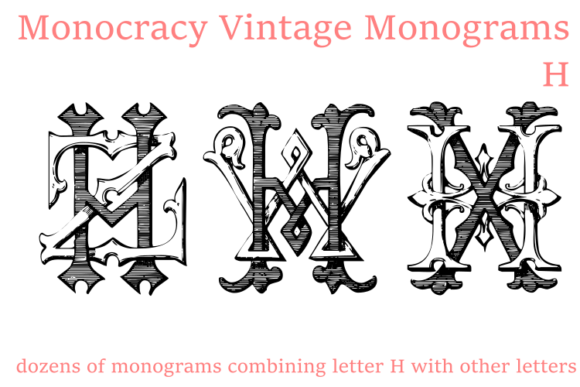
Step into a world of timeless elegance with Vintage Monograms H, a decorative font family that captures the essence of classic monograms. Each character is meticulously crafted to reflect the intricate beauty of vintage logos and emblems, inviting you to add a touch of sophistication to your creative projects.
Unleash your inner designer and utilize Vintage Monograms H to craft personalized invitations, stationery, and packaging that exudes an air of exclusivity. Its ornate flourishes and graceful curves add a touch of luxury to business cards, creating a lasting impression that sets you apart.
With Vintage Monograms H, your designs will transcend time, embodying the charm and elegance of yesteryear. Imagine your words adorned with this exquisite font, conveying a sense of heritage and refinement. Let your creativity flourish as you explore the endless possibilities that await you.
Whether you're a seasoned designer seeking to elevate your branding or a passionate crafter seeking unique personalization, Vintage Monograms H is your muse. Its timeless appeal and versatility make it the perfect choice for adding a touch of sophistication to any project.
Embark on a journey of creativity with Vintage Monograms H and discover the beauty of classic design. Its intricate details and timeless charm will transform your words into works of art, leaving an unforgettable impression on all who behold them.